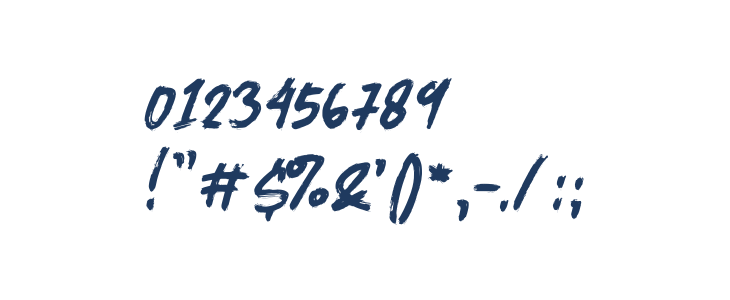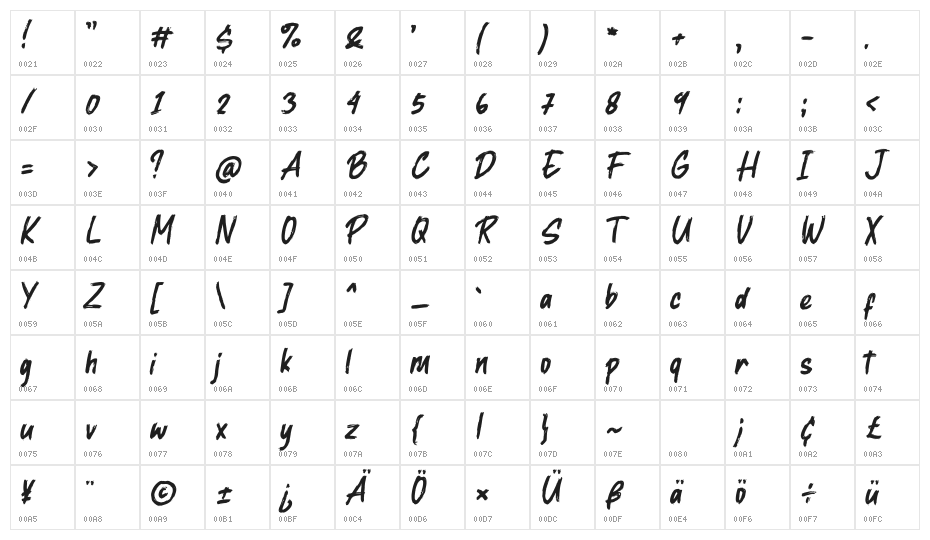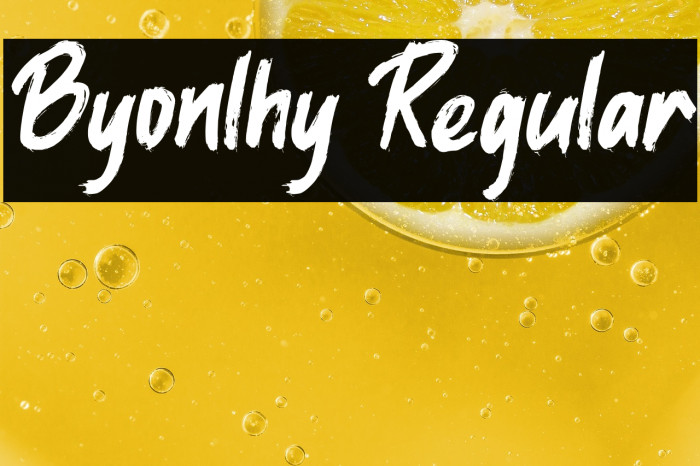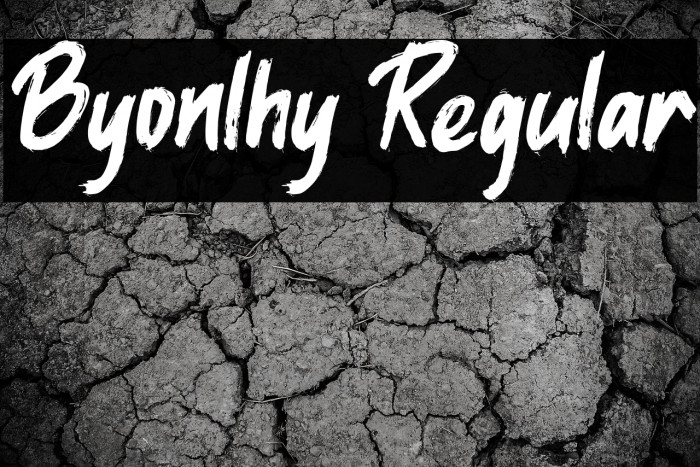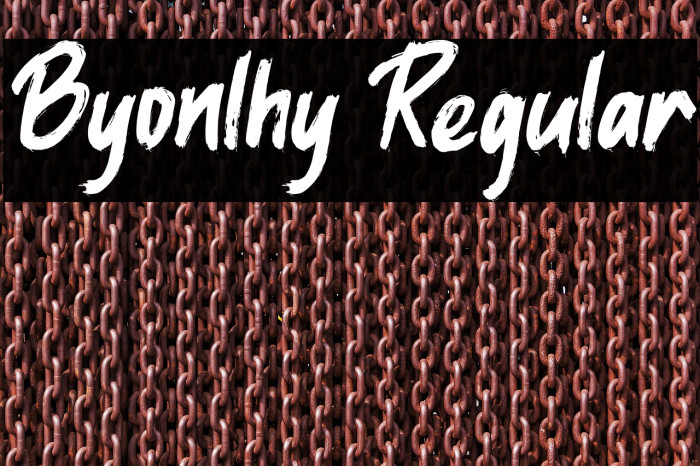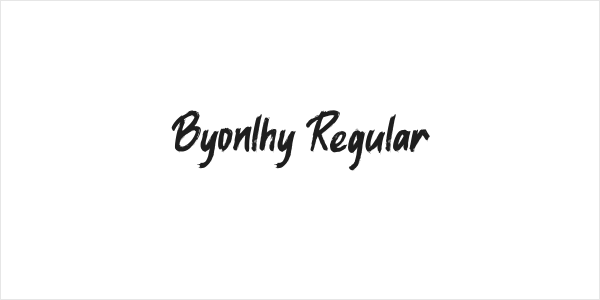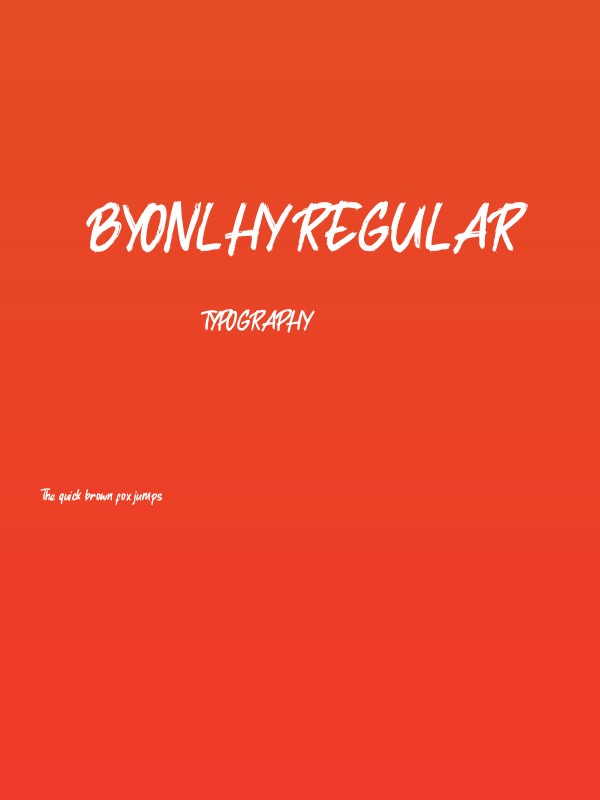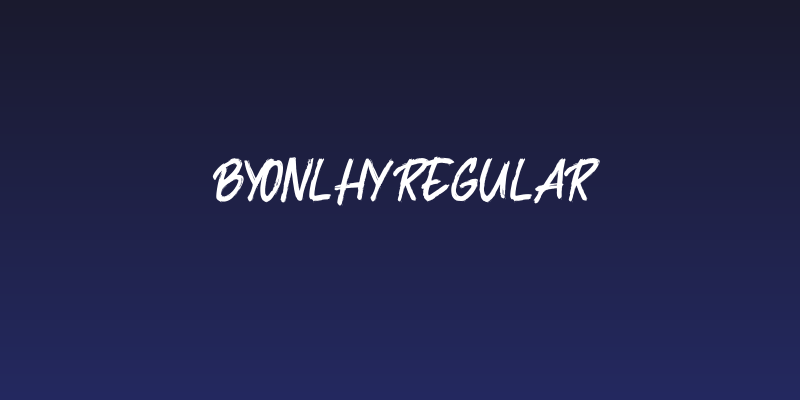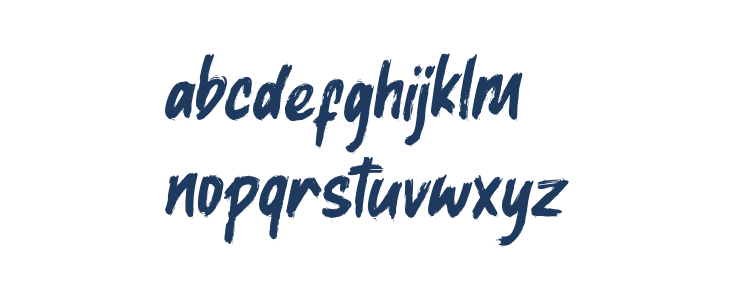
Byonlhy Regular Font
Byonlhy Regular Description
This font features a bold, energetic script style with a hand-painted appearance. The strokes are thick and dynamic, giving a sense of movement and spontaneity. The letters are slightly slanted, enhancing the casual and informal feel. The uppercase and lowercase characters maintain a consistent style, with some letters having unique flourishes that add to the overall artistic vibe. The numbers and special characters follow the same expressive design, making this font suitable for creative and eye-catching designs.
| Proposed Projects | Ideal for branding, posters, invitations, and any project requiring a lively, artistic touch. |